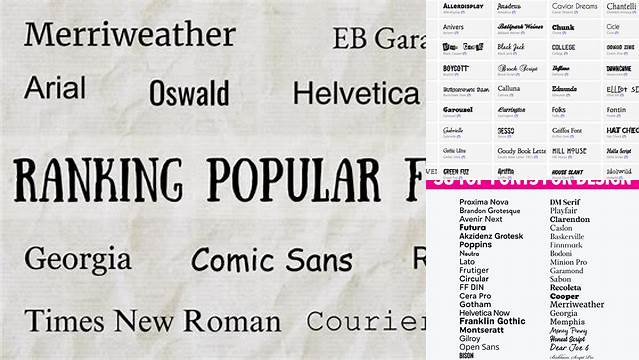
Top Font Names: A Designer's Guide To Popular Typefaces
Are you looking to enhance your design projects with the perfect typeface? Well, you've come to the right place, guys! In this comprehensive guide, we'll explore some of the most popular font names that designers and creatives use every single day. Understanding these fonts can significantly improve your design vocabulary and help you make informed decisions about typography. From classic serifs to modern sans-serifs, we'll cover it all. So, let's dive in and discover the fonts that can transform your work!
Why Font Choice Matters
Before we jump into the list of popular font names, let's talk about why your font choice is so crucial. Typography isn't just about making words look pretty; it's about communication. The right font can convey the mood, tone, and personality of your message. Think of it as the voice of your text β do you want it to be serious and authoritative, or friendly and approachable?
- Readability: First and foremost, your font should be readable. If people can't easily read your text, they're not going to engage with your content. Choose fonts that are clear and well-spaced, especially for body text.
- Legibility: Legibility refers to how easily individual characters can be distinguished from one another. Some fonts might look stylish but have poor legibility, making it difficult to differentiate between letters like 'i', 'l', and '1'.
- Mood and Tone: Fonts have distinct personalities. A serif font like Times New Roman might feel traditional and formal, while a sans-serif font like Helvetica often feels modern and clean. Consider the mood you want to evoke in your design.
- Consistency: Using too many fonts can make your design look cluttered and unprofessional. Stick to a limited palette of fonts (usually two or three) and use them consistently throughout your project.
- Accessibility: Ensure your font choices are accessible to everyone, including people with visual impairments. Choose fonts with good contrast and avoid overly decorative or script fonts for important text.
Selecting the right font is an integral part of the design process. It requires thoughtful consideration and an understanding of how different fonts can impact your overall message. By focusing on readability, mood, and consistency, you can create designs that are both visually appealing and effective in communicating your intended message.
Classic Serif Fonts
Let's start with the classics. Serif fonts are characterized by the small decorative strokes (called serifs) at the end of letterforms. They often convey a sense of tradition, authority, and elegance. Here are a few popular font names in the serif category:
Times New Roman
Ah, Times New Roman β the font everyone loves to hate (or hates to love!). It's ubiquitous, thanks to its default status in many word processors. While it might not be the most exciting choice, it's incredibly readable and versatile. It works well for body text in books, newspapers, and academic papers. Despite its overuse, Times New Roman remains a reliable option when you need a font that's clear, legible, and unobtrusive. Plus, it's hard to argue with its historical significance β it was originally designed for The Times newspaper in 1931!
Garamond
Garamond is another timeless serif font that exudes elegance and sophistication. It has a slightly softer, more organic feel than Times New Roman, making it a great choice for projects that need a touch of refinement. Garamond is often used in books, magazines, and high-end branding. Its classic proportions and delicate serifs make it a pleasure to read, even in long passages of text. If you're aiming for a look that's both classic and approachable, Garamond is an excellent option.
Baskerville
Baskerville is a transitional serif font designed in the 1750s by John Baskerville. It represents a bridge between older style serifs and more modern designs. Baskerville is known for its sharp serifs, high contrast, and balanced proportions. It's a highly readable font that works well in both print and digital environments. Use it for projects where you want to convey a sense of sophistication and attention to detail. Its elegant appearance makes it a favorite for books, magazines, and corporate branding.
Bodoni
Bodoni is a bold and dramatic serif font characterized by its extreme contrast between thick and thin strokes. It has a striking, almost architectural quality that makes it ideal for headlines, titles, and display typography. Bodoni is often used in fashion magazines, posters, and other designs where you want to make a statement. However, it can be less readable in small sizes, so it's best reserved for larger text elements. If you're looking for a font that commands attention, Bodoni is an excellent choice.
Modern Sans-Serif Fonts
Now, let's move on to sans-serif fonts. These fonts lack the decorative serifs found in serif fonts, giving them a cleaner, more modern appearance. Sans-serif fonts are often associated with simplicity, clarity, and efficiency. Here are some popular font names in the sans-serif category:
Helvetica
Ah, Helvetica β the king of sans-serif fonts! This font is known for its clean lines, neutral appearance, and exceptional legibility. It's been used in countless designs, from corporate logos to signage systems. Helvetica is incredibly versatile and works well in a wide range of applications. Its simplicity and clarity make it a reliable choice for body text, headlines, and everything in between. While some designers find it overused, there's no denying its effectiveness as a workhorse font.
Arial
Arial is often considered the "Helvetica alternative" because it was designed to be a similar, but more readily available, font. While it shares many characteristics with Helvetica, there are subtle differences in its letterforms. Arial is another highly legible and versatile sans-serif font that works well in a variety of applications. It's a safe and reliable choice for body text, headlines, and other text elements. If you're looking for a font that's widely compatible and easy to read, Arial is a solid option.
Futura
Futura is a geometric sans-serif font designed in the 1920s. It's characterized by its clean, minimalist shapes and its strong sense of geometry. Futura is often used in logos, posters, and other designs where you want to convey a sense of modernity and efficiency. Its distinctive letterforms make it instantly recognizable, and its clean lines make it highly legible. If you're aiming for a look that's both stylish and functional, Futura is an excellent choice.
Open Sans
Open Sans is a humanist sans-serif font designed with a neutral yet friendly appearance. Itβs incredibly legible across print, web, and mobile interfaces, making it a popular choice for user interfaces and body text. Its open forms and clear strokes provide excellent readability even at smaller sizes. This font is designed to be versatile and unobtrusive, ensuring it complements rather than competes with the content. Open Sans provides a clean, modern feel perfect for digital-first projects needing clarity and accessibility.
Script and Decorative Fonts
For when you need something with a little more flair, script and decorative fonts can add personality and style to your designs. However, use these fonts sparingly, as they can be less readable than serif and sans-serif fonts.
Brush Script
Brush Script is a casual, handwritten-style font that mimics the look of brush lettering. It's often used for invitations, greeting cards, and other designs where you want to convey a sense of informality and fun. However, it can be difficult to read in large blocks of text, so it's best reserved for short phrases and headings.
Pacifico
Pacifico is a fun and friendly script font that evokes a sense of summertime and relaxation. It's often used for logos, posters, and other designs where you want to create a lighthearted and approachable feel. Its flowing curves and playful letterforms make it a popular choice for branding and marketing materials.
Lobster
Lobster is a bold and distinctive script font that's characterized by its condensed letterforms and elaborate swashes. It's often used for headlines, logos, and other display typography where you want to make a statement. However, it can be less readable in small sizes, so it's best reserved for larger text elements.
Choosing the right font can be a daunting task, but here are a few tips to help you make the right decision:
- Consider your audience: Who are you trying to reach with your design? Choose fonts that are appropriate for your target audience.
- Think about the context: Where will your design be used? Choose fonts that are legible in the intended environment (e.g., print, web, mobile).
- Experiment with different fonts: Don't be afraid to try out different font combinations until you find something that works.
- Get feedback: Ask others for their opinion on your font choices. A fresh perspective can be invaluable.
- Use font pairing resources: Websites like FontPair and Google Fonts can suggest complementary font pairings to help you create a cohesive design.
Choosing the right font is an essential part of the design process. By understanding the different types of fonts and their characteristics, you can make informed decisions that enhance your message and elevate your designs. So, go forth and experiment with these popular font names to create stunning and effective visuals!
I hope this guide has given you a solid foundation for understanding and using popular font names. Happy designing, and remember, the right font can make all the difference!